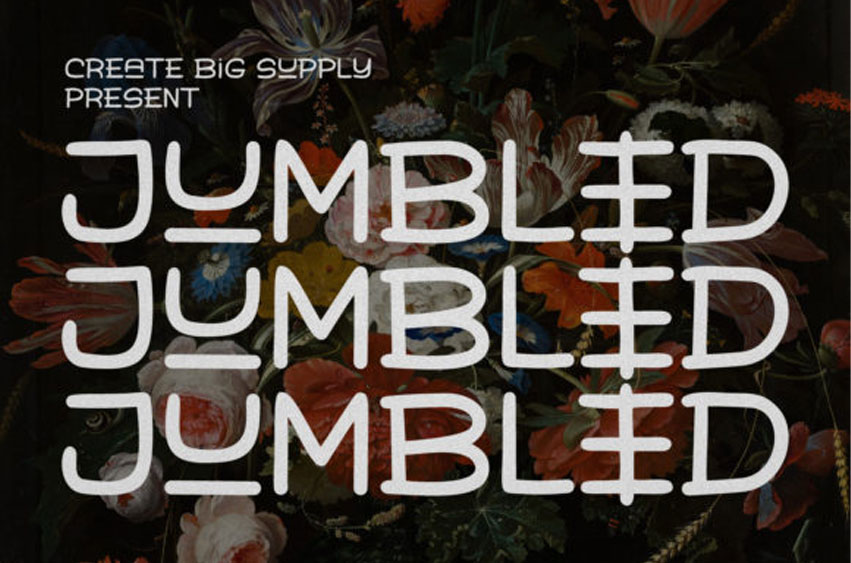
Jumbled Font
Jumbled Font is a modern and exciting display font that perfectly combines playfulness with elegance.
Easy to read and with well-rounded characters, this font is perfect for almost any creative project!